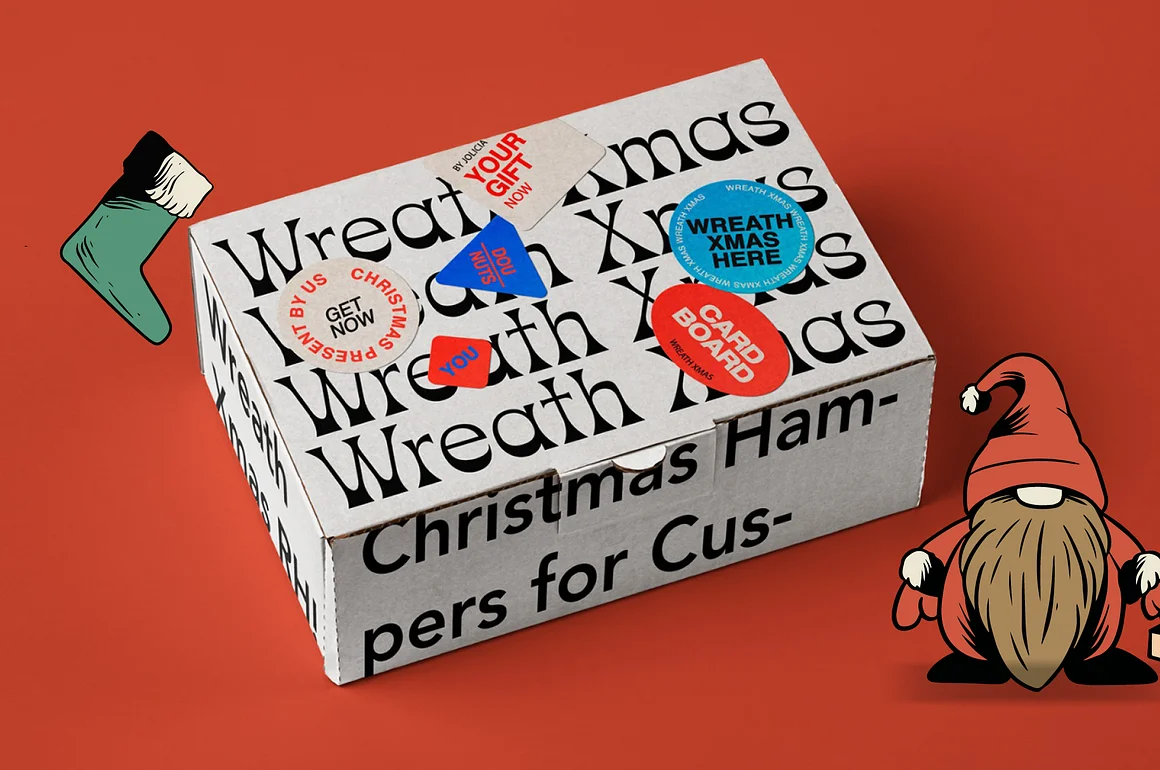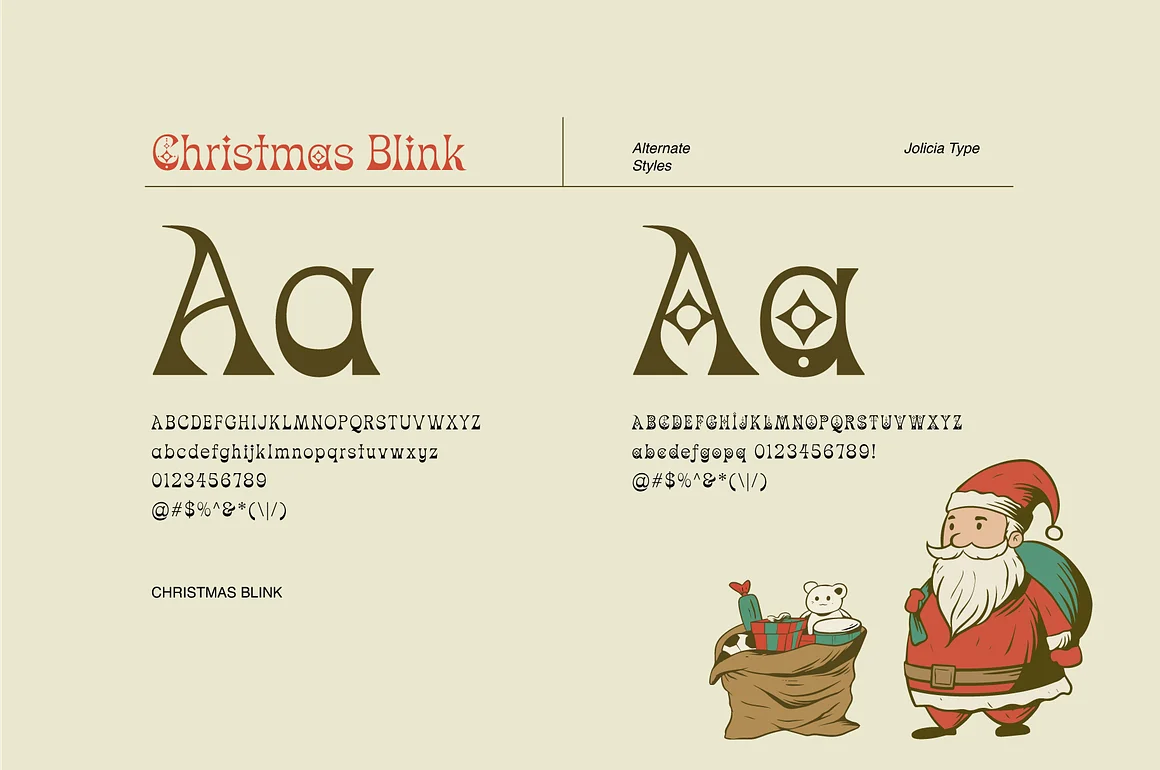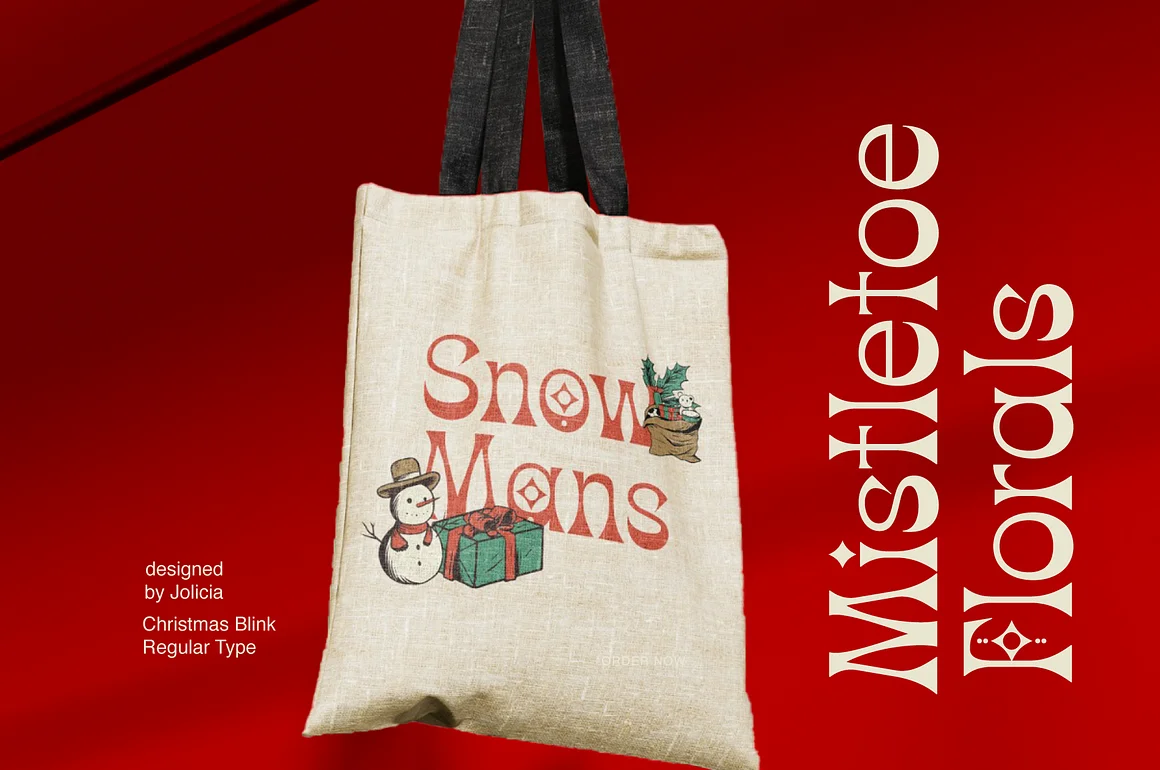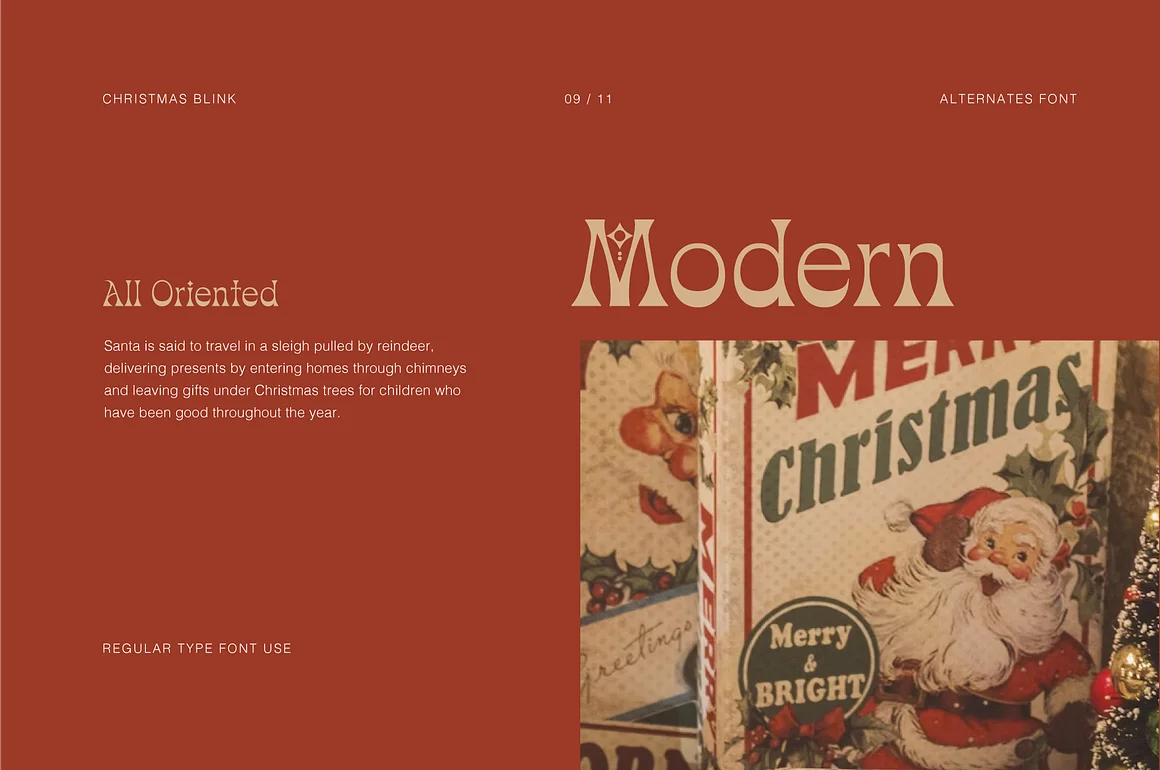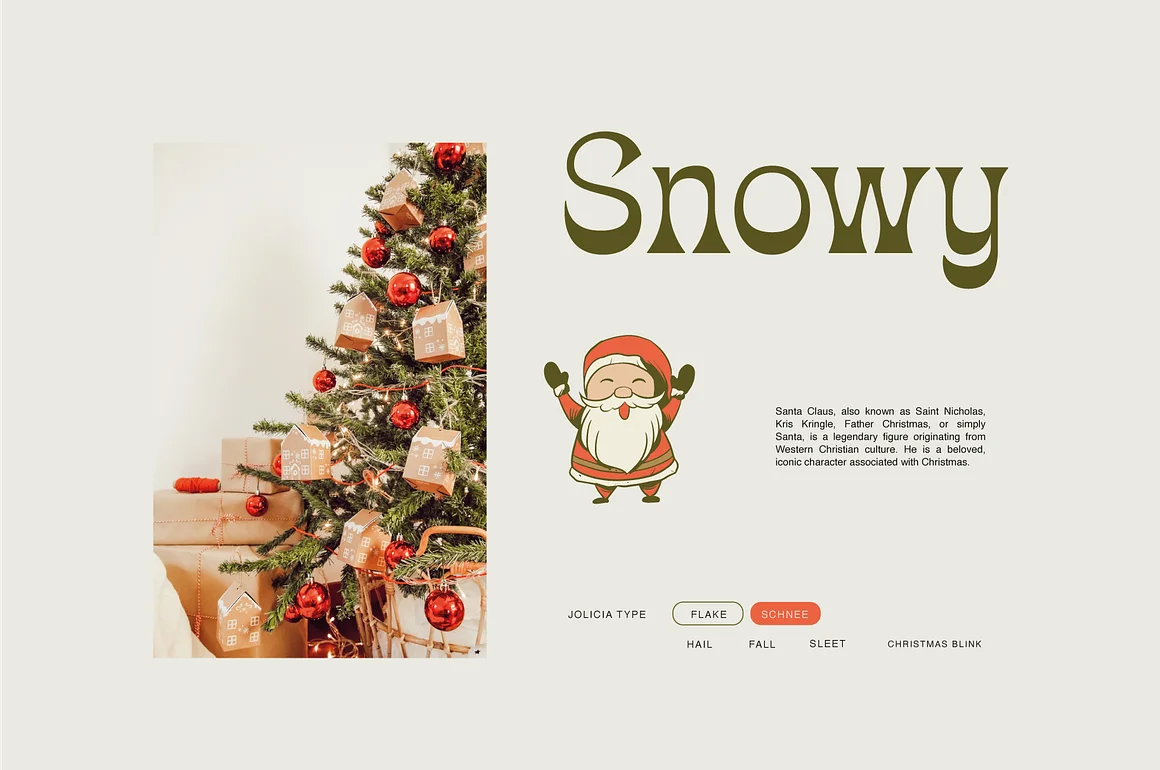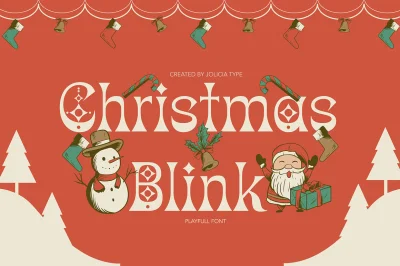
Christmas Blink | Playfull Font
This animated font is perfect for children's Christmas parties, playful holiday animations, twinkling Christmas displays, fun seasonal decorations, interactive Christmas games, digital holiday content, animated Christmas cards, playful Christmas websites, flashing holiday signage, and whimsical Christmas messaging materials.
Christmas Blink | Playfull Font is exciting because it captures the magical sparkle and playful energy of twinkling Christmas lights through its dynamically designed letterforms that seem to blink and shimmer with the same delightful rhythm as colorful holiday lights dancing on Christmas trees. The font features bouncy, animated characters with blinking effects and playful details that mirror the joyful unpredictability of Christmas lights flickering in patterns that bring wonder to children's eyes and smiles to adults' faces, incorporating twinkling accents and animated flourishes that create typography as lively and enchanting as a house covered in synchronized Christmas light displays. Each letter showcases the whimsical charm and playful spirit that makes blinking Christmas lights such beloved decorations, with cheerful proportions and animated touches that transform ordinary text into celebrations of light, movement, and the pure joy that comes from watching Christmas magic unfold before our eyes.
The Christmas Blink | Playfull Font family includes animated style variations: Regular, Bold, Light, Twinkling, and Flashing versions. The collection features special blinking elements including light bulb accents, sparkle effects, twinkling details, and animated ornaments. Additional components include blinking borders, animated frames, twinkling decorations, and playful ornamental designs that enhance the font's Christmas blink appeal and create cohesive animated holiday themes.
Digital designers and playful celebrants will find Christmas Blink | Playfull Font to be an exceptional resource for creating engaging animated holiday communications that capture the wonder and playful magic of twinkling Christmas displays. This delightfully crafted font transforms ordinary Christmas text into animated experiences that bring the same joy and fascination as watching Christmas lights blink in mesmerizing patterns that make the holiday season feel truly magical and alive.
The typeface includes comprehensive character support with animated styling that maintains excellent readability while conveying the playful movement and twinkling charm of blinking Christmas lights. The font's animated design ensures captivating results across both digital animation applications and static designs that suggest movement and sparkle.
Perfect for children's entertainment, digital Christmas content, playful holiday celebrations, and animated seasonal marketing, this font delivers enchanting visual impact that communicates wonder, playfulness, and the magical twinkling spirit of Christmas lights that make the holiday season sparkle with joy and childlike wonder.